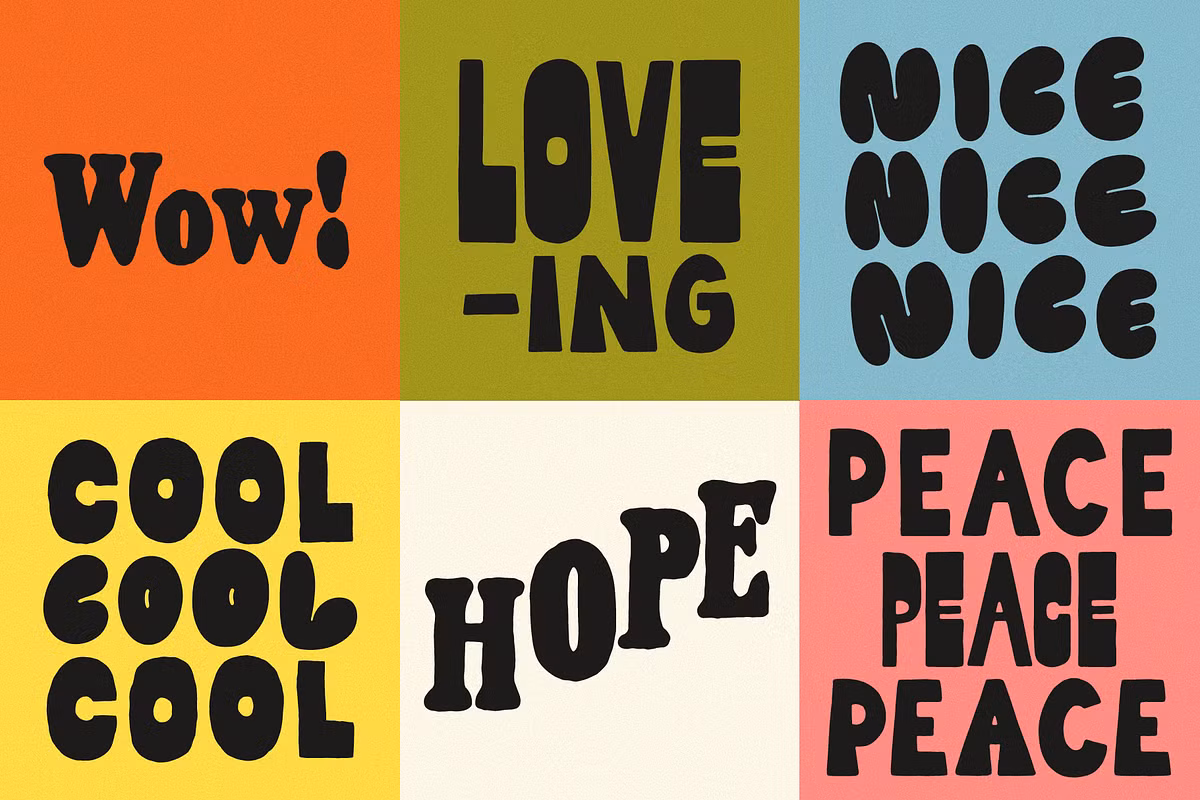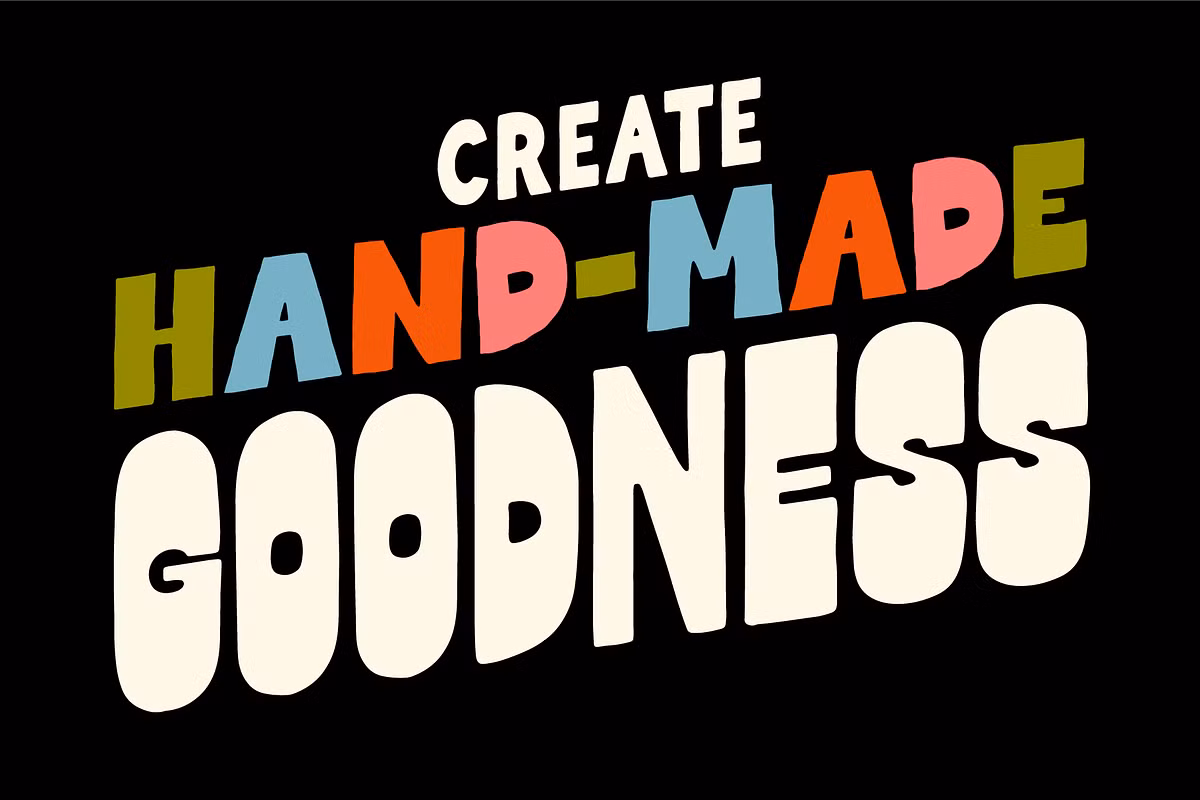
Hand-lettering Kit: Unique Collection of Handmade Fonts for Design
The Hand-lettering Kit is a one-of-a-kind set of fonts that are made by hand, which adds a personal and special touch to the things you design. What’s really cool about this collection is that each font is drawn by hand, so you get a piece of art that’s full of personality and charm. Because these fonts are meant to look a little imperfect, just like something that’s handmade, they’re perfect for creating designs that look like they were written by hand, which can really make them stand out in a world where everything is digital. This kit is great for anyone who wants to add a little extra something to their designs and make them look more unique and interesting.
This kit is not just about fonts; it’s an invitation for you to explore and express your creativity. Whether you are designing logos, quotes, art pieces, signs, or titles, the Hand-lettering Kit has the perfect font waiting for you. Let’s delve deeper into the features and various aspects of this exciting collection.
Font Styles Included in the Hand-lettering Kit
The Hand-lettering Kit has a lot of different font styles that can be used for many kinds of design projects. Some of the styles you’ll get with the kit are:
- Serif Fonts: Traditional and elegant, perfect for formal designs.
- Bubble Fonts: Really fun and playful, which makes them perfect for things like kids’ stuff or when you want a brand to seem casual and friendly.
- Retro Fonts: Evoking nostalgia, great for vintage-themed projects.
- Modern Fonts: Sleek and contemporary, suitable for minimalistic designs.
- Reverse Contrast Fonts: Unique and eye-catching, these fonts are designed to draw attention.
- Sans Serif Fonts: Clean and straightforward, excellent for readability.
- Bold Fonts: Strong and impactful, perfect for headers or logos.
- Tall Fonts: Great for designs needing vertical emphasis.
- Condensed Fonts: Space-saving yet stylish, ideal for tight layouts.
No matter what kind of project you’re working on, the Hand-lettering Kit has a huge variety of styles to choose from, so you’re bound to find a font that fits your idea perfectly.
Use Cases for the Hand-lettering Kit
When it comes to practical applications, the Hand-lettering Kit is incredibly versatile. Here are some ways you can utilize these handmade fonts:
- Logos: Create a memorable brand identity with unique typography that reflects your brand’s essence.
- Quotes: Design inspirational or motivational quotes that stand out with personality and flair.
- Art Projects: Add a handcrafted element to your artworks, making them more relatable and engaging.
- Signs: Making signs is a great way to get creative, whether it’s for a store or just a fun project.
- Titles: Make your headings pop in any layout, ensuring they capture the viewer’s attention instantly.
With such a wide array of use cases, the Hand-lettering Kit allows you to infuse creativity into every aspect of your design work.
Mixing and Matching Fonts
What’s really cool about the Hand-lettering Kit is that you can pick and choose from different fonts to create some amazing looks. Since these fonts are handmade, they work really well together, so you can mix and match them to get the effect you want. This means you can combine different styles to create something totally unique and stunning.
Mixing and matching different fonts can really make your text stand out. For example, combining a strong, classic font with a fun, bubbly one can add a lot of visual appeal. Or, you could use a sleek, modern font for the main part of your text and then use a tall, narrow font to draw attention to certain words or phrases. The great thing is, there are so many options to choose from, and you can try out different combinations to see what works best for you. This way, you can create a unique look that’s all your own.
The Hand-lettering Kit is so much more than just a bunch of fonts – it’s a way to express yourself and be creative. With all the different styles and little imperfections, you can make designs that really stand out and mean something to the people who see them. It doesn’t matter if you’re a pro at designing or just doing it for fun, the Hand-lettering Kit is an invitation to try your hand at hand-lettering and see where your imagination takes you. So why not give it a shot and start making some amazing, one-of-a-kind projects right now? You can use it to add a personal touch to your work, or just to have fun and be artistic. Either way, the Hand-lettering Kit is a great way to get creative and make something that’s all your own.